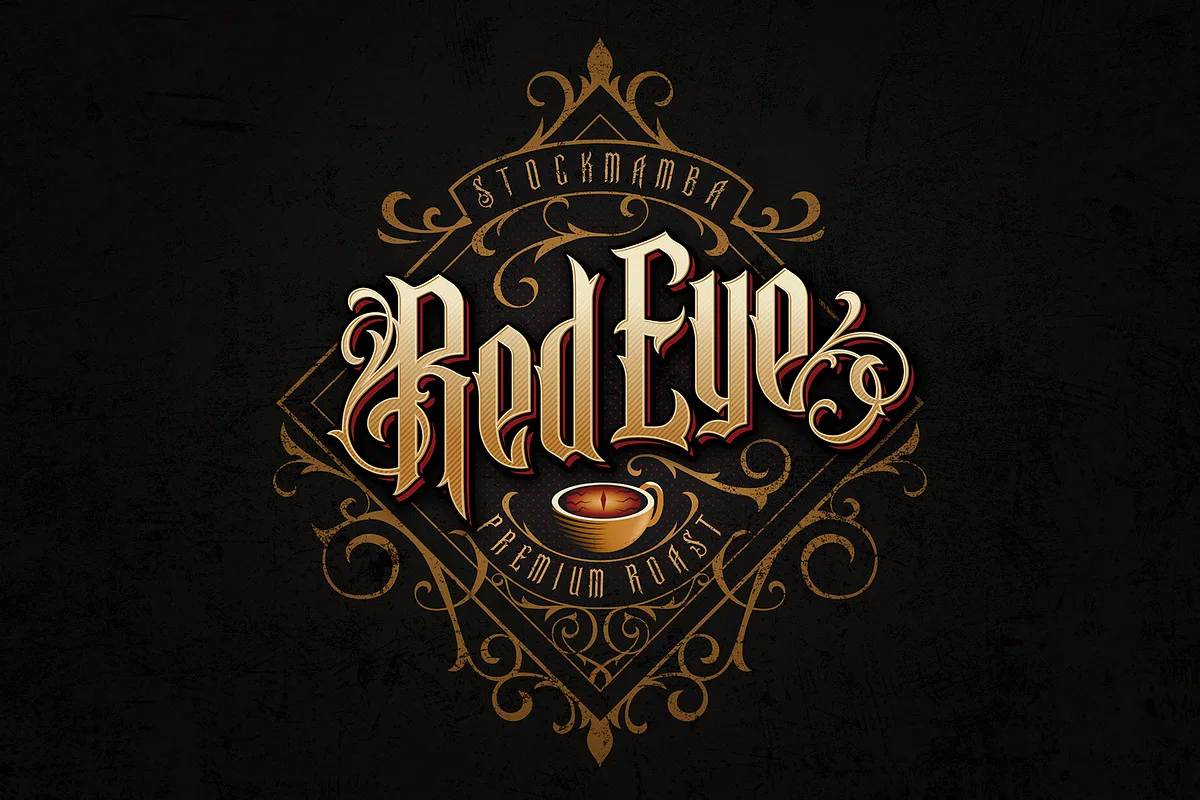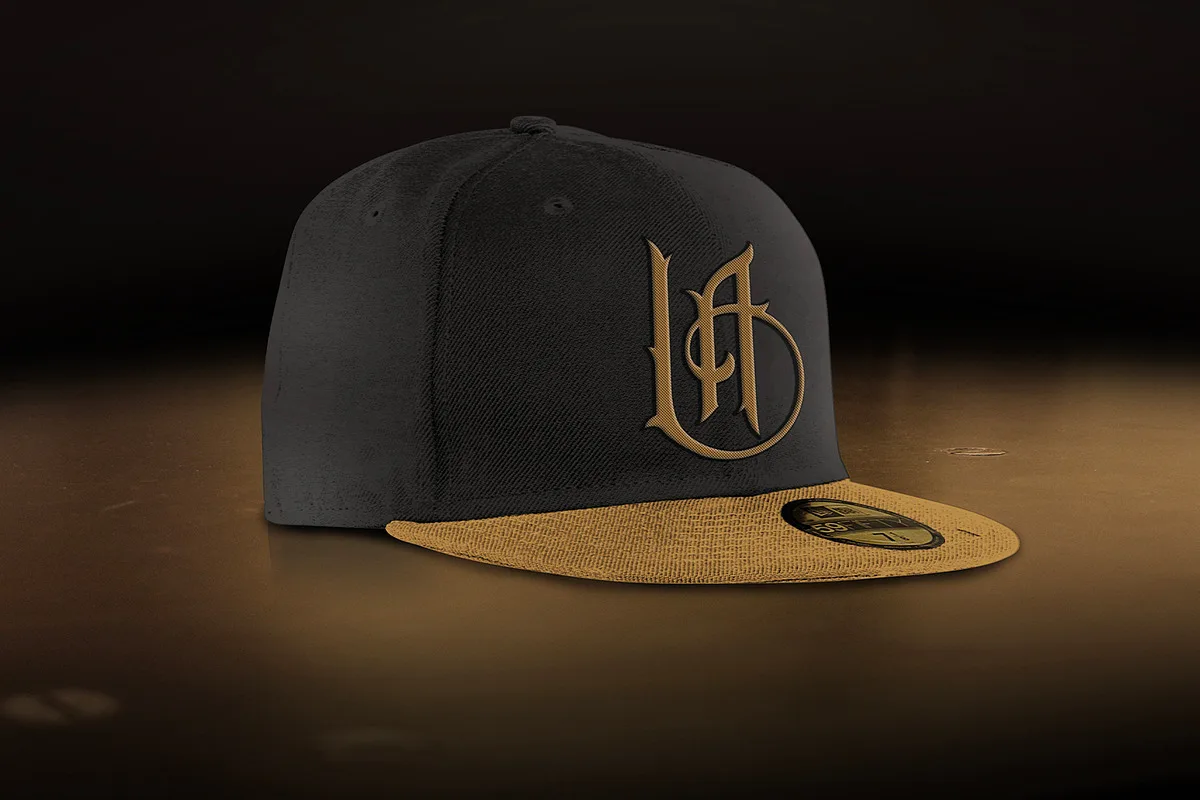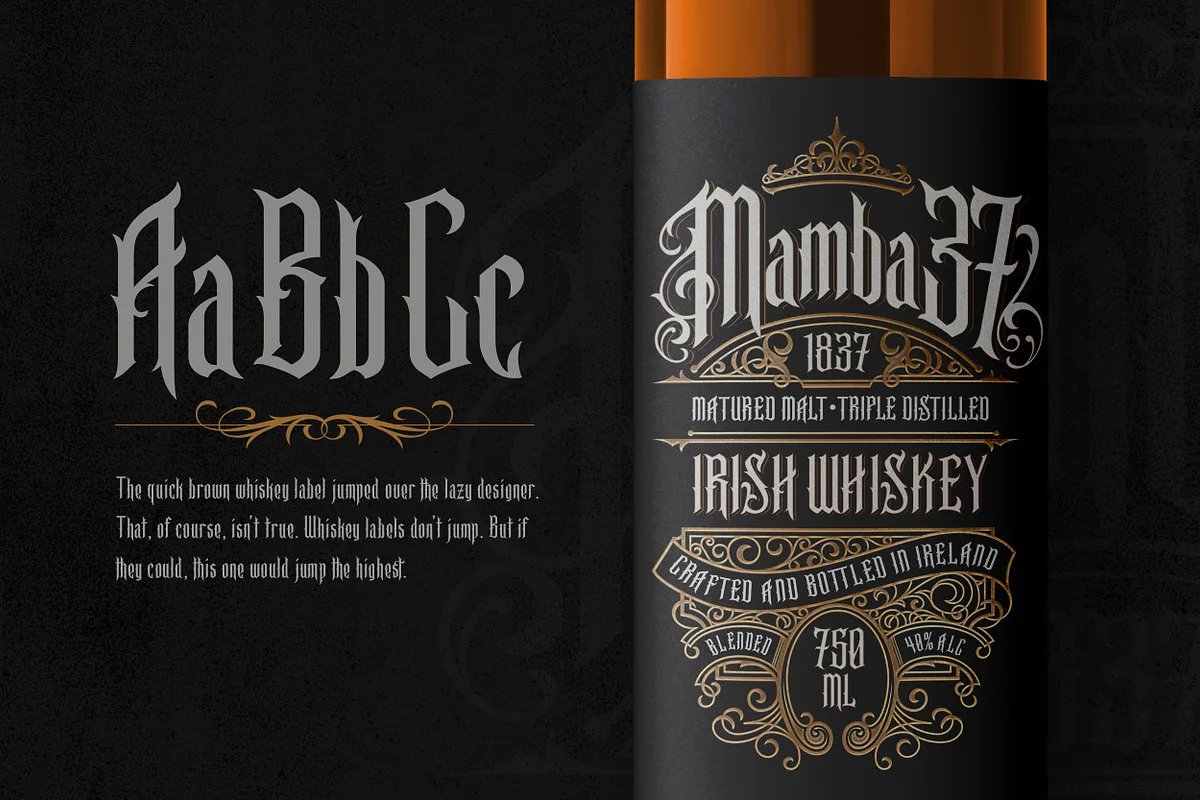
BaeSide is a modern blackletter display font with alternates that have an ornate flair. BaeSide was designed as a display font for tattoo shops, drink labels, clothing labels, etc. The font comes complete with loads of alternates, ligatures, bonus flourish elements, and ornaments pulled from some of the capital letter forms. This font is not multilingual but does include all of the basic Latin numbers and punctuation characters.
The bonus swashes and ornaments have been added as alternate fonts. Capital letters will display them. Lowercase letters will display a mirror image of the capital letter versions.